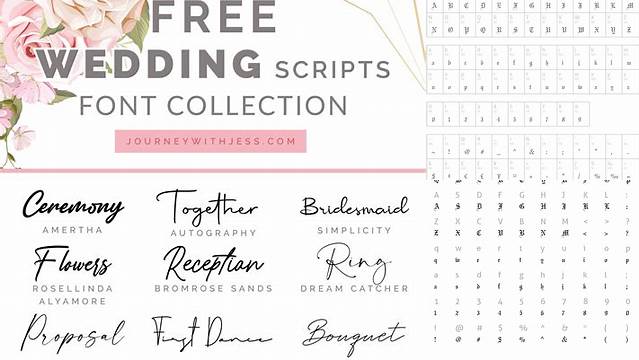
Free Wedding Fonts: STD Regular Download Guide
Choosing the perfect font for your wedding invitations, signage, and other stationery is a crucial step in setting the tone for your big day. A well-chosen font can add elegance, romance, or a touch of whimsy to your wedding materials. In this comprehensive guide, we'll dive into the world of wedding text STD regular free fonts, exploring various options, where to find them, and how to use them effectively. Let's get started, guys!
Wedding Text STD Regular Fonts: An Overview
Before we delve into specifics, let's understand what we mean by "wedding text STD regular free fonts." The term refers to standard, regular-weight fonts that are suitable for wedding-related materials and are available for free download. These fonts often encompass classic serif fonts, elegant script fonts, and modern sans-serif options. The "regular" weight is crucial as it ensures readability across various sizes and mediums. You want your guests to be able to easily read your invitations, right?
Classic Serif Fonts for a Timeless Wedding
Serif fonts are characterized by the small decorative strokes (serifs) at the end of each letterform. These fonts often convey a sense of tradition, elegance, and formality, making them a popular choice for classic wedding themes. Think of fonts like Times New Roman, Garamond, and Georgia. These are classics for a reason! They're elegant, easy to read, and perfect for formal occasions. Let's explore some specific examples within the realm of wedding text STD regular free fonts:
1. Times New Roman for Wedding Invitations
Times New Roman is a ubiquitous serif font that exudes timeless elegance. Its clean lines and balanced proportions make it a highly readable choice for wedding invitations, save-the-dates, and other stationery. While some might consider it a bit overused, its reliability and classic appeal are undeniable. Using Times New Roman can give your wedding materials a polished and sophisticated look. When using this font, make sure to pair it with a complementary font for headings or accents to avoid monotony. Remember, the key is to create a harmonious visual experience.
2. Garamond: An Elegant Serif Choice
Garamond is another classic serif font known for its refined and elegant appearance. Its delicate strokes and graceful curves make it a perfect choice for couples seeking a touch of sophistication in their wedding materials. This font is especially well-suited for formal weddings with a traditional aesthetic. Garamond is a fantastic choice for couples who want their wedding to feel like a fairy tale. Think of it as the literary equivalent of a beautiful gown – timeless and effortlessly chic. Using Garamond in your wedding text STD regular free fonts can elevate your wedding stationery to a whole new level of class.
3. Georgia: A Readable Serif for Wedding Stationery
Georgia is a highly readable serif font that was designed specifically for on-screen use. Its clear letterforms and generous spacing make it an excellent choice for both print and digital applications. This font is particularly well-suited for couples who want a serif font that is both elegant and easy to read. Georgia is a great option if you're printing a lot of text, like directions or accommodation details. It's all about ensuring your guests have a smooth and enjoyable experience, right? Plus, it's one of those wedding text STD regular free fonts that you can rely on to look good in any setting.
Elegant Script Fonts for a Romantic Touch
Script fonts, also known as calligraphy fonts, mimic the flowing strokes of handwriting. These fonts add a touch of romance, whimsy, and personality to wedding materials. They're perfect for adding a personal touch and creating a sense of intimacy. Think elegant swirls, delicate strokes, and graceful curves. However, it's crucial to use script fonts sparingly and pair them with a more readable font for body text. Overdoing it with script can make your text difficult to decipher. When exploring wedding text STD regular free fonts, script fonts should be a key consideration for adding that romantic flair.
Choosing the right fonts for your wedding is a significant decision that can impact the overall aesthetic of your big day. By exploring the world of wedding text STD regular free fonts, you can create beautiful and memorable stationery without breaking the bank. Remember to consider your wedding theme, font pairings, licensing, and readability. With a little research and creativity, you can find the perfect fonts to set the tone for your special occasion. Happy font hunting, everyone!